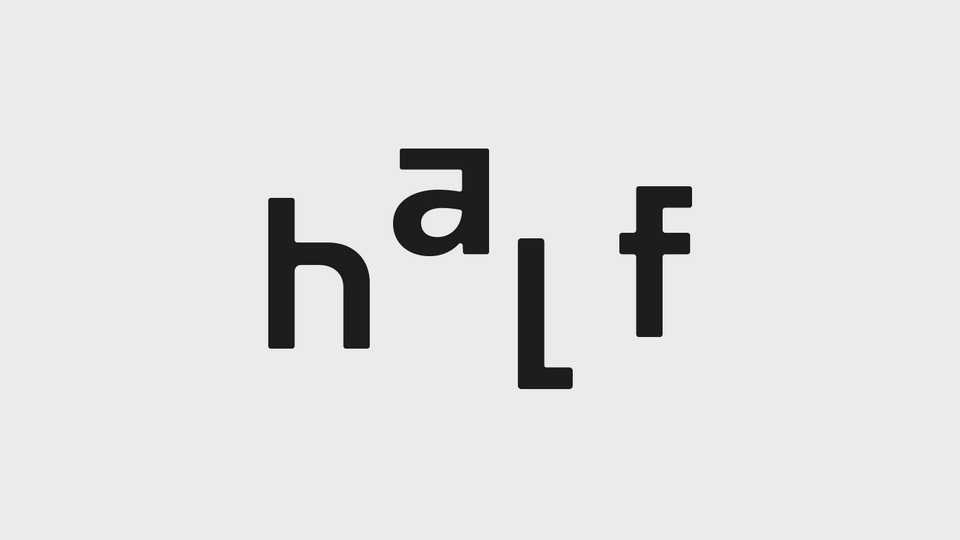
Download Half typeface, a creative modern display font family in three weights with mathcing Italics, Outlined and Half styles. Half font works perfect for posters, headlines, branding, logo design, merchandise and other unique artworks.